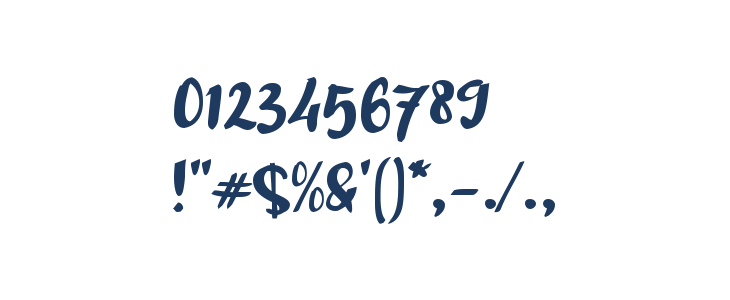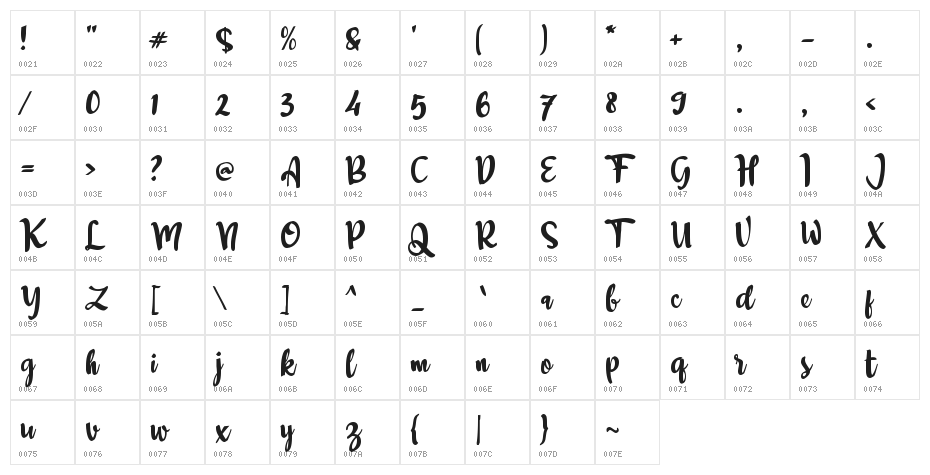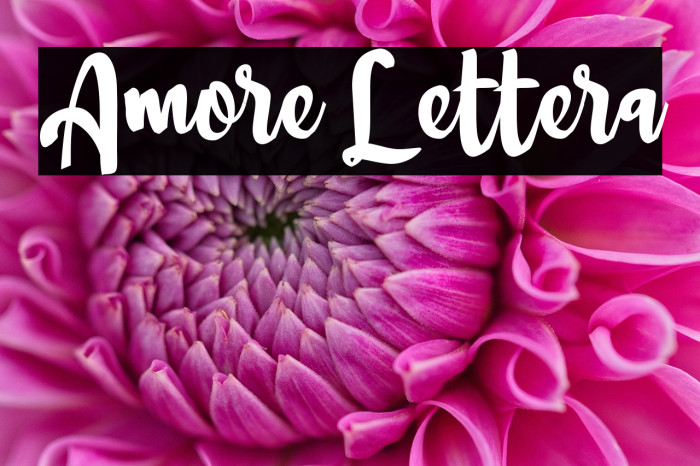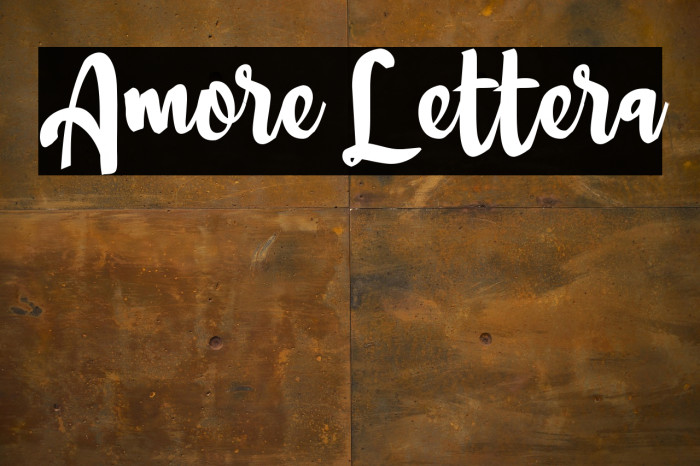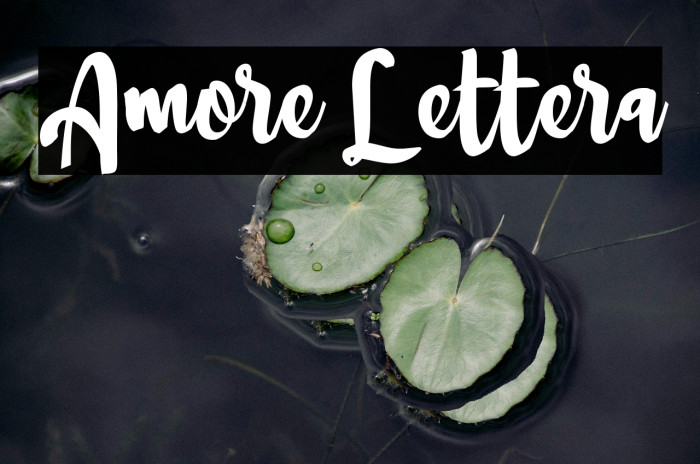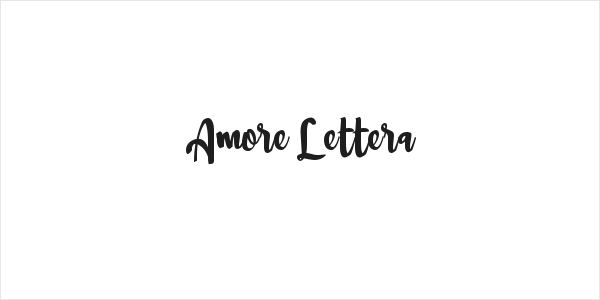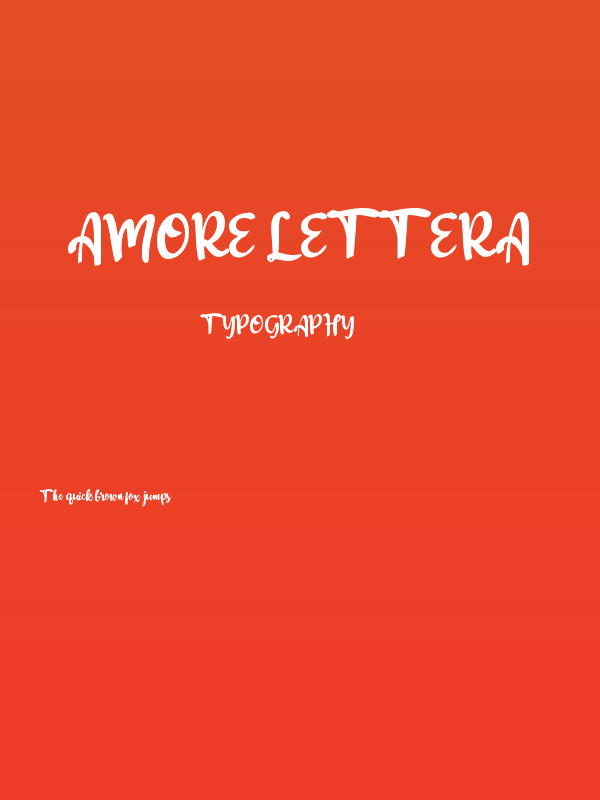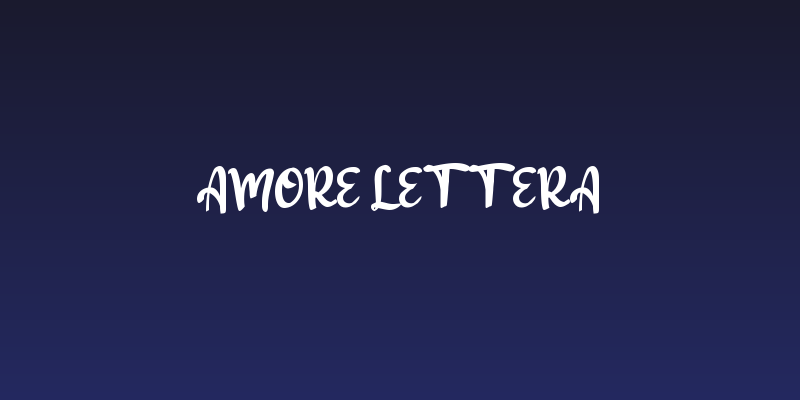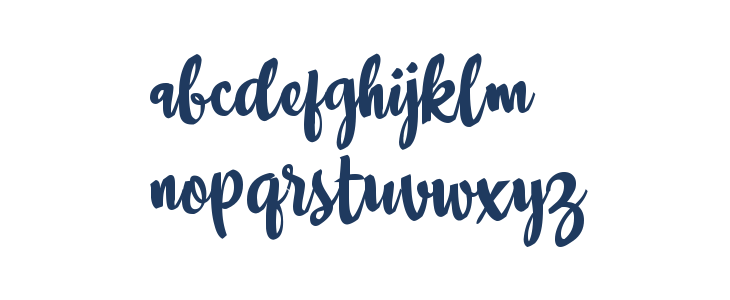
Amore Lettera Font
Amore Lettera Description
This font features a bold and expressive script style, characterized by its flowing, cursive letterforms that convey a sense of elegance and dynamism. The uppercase letters are slightly more structured, while the lowercase letters exhibit a more fluid and connected appearance. The numbers and special characters maintain the same lively and artistic flair, making the font versatile for various creative applications. The strokes are thick and consistent, providing a strong visual impact, while the character spacing is balanced to ensure readability. This font is ideal for projects that require a touch of sophistication and personality.
| Proposed Projects | Ideal for wedding invitations, branding, greeting cards, and artistic posters. |